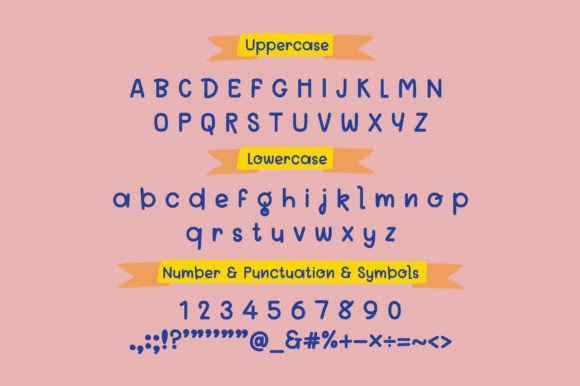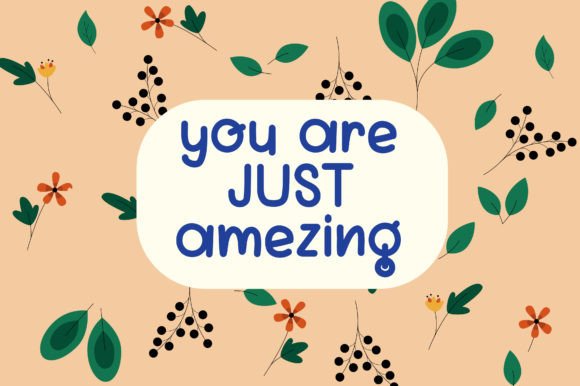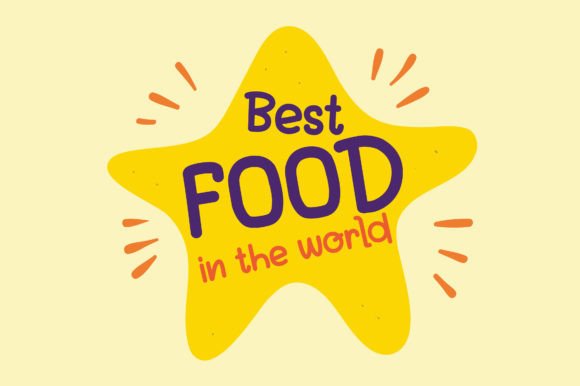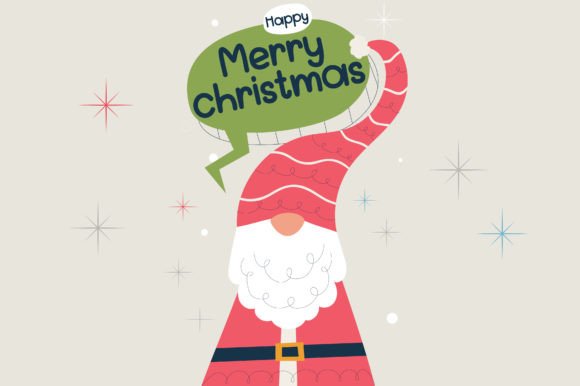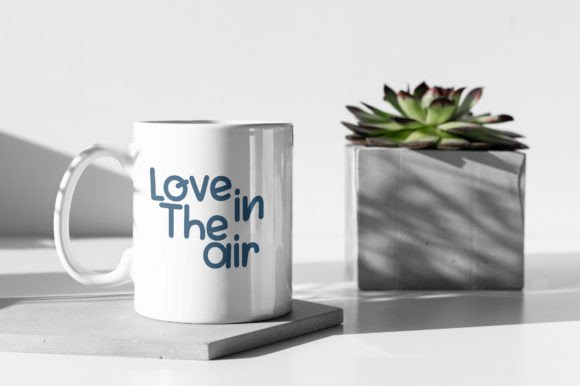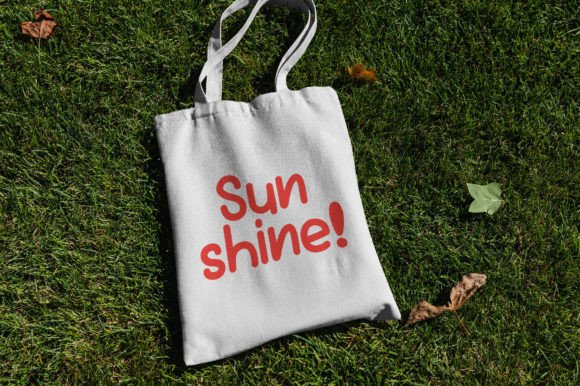
Find Your Creative Groove with the Flowing Arc Font Font
Remember that moment when you stumbled upon the perfect font, and your design suddenly came to life? It’s a feeling that’s hard to describe, but it’s a rush of excitement and a sense of pride. For designers, finding the right font can be a game-changer. It’s the difference between a good design and a great one. And, we’re excited to introduce you to the Flowing Arc Font Font, a sweet and friendly handwritten font that’s sure to captivate your audience.
With its natural and unique style, the Flowing Arc Font Font is incredibly versatile, making it perfect for a wide range of designs, from digital projects to print materials. Whether you’re a seasoned designer or just starting out, this font is sure to inspire your creativity and help you bring your vision to life.
Flowing Arc Font Font Key Features
- Unique Characteristics: Flowing Arc Font Font features a unique blend of organic and geometric shapes, creating a dynamic and engaging visual experience.
Flowing Arc Font Review
Overall, I was impressed with the Flowing Arc Font. It’s a beautiful, modern sans-serif font that works well for a variety of applications, from digital interfaces to print materials.
- The font is highly customizable, allowing designers to adjust the weight, width, and other parameters to suit their needs.
- It has a clean, minimalist aesthetic that makes it perfect for modern designs.
- The font is highly legible, even at small sizes, making it suitable for use in digital interfaces and other applications where text may be displayed in a small format.
However, I did encounter some limitations: ⚠️
- The font may not be suitable for use in traditional or formal settings, as it has a more modern and edgy feel.
- It may not be as versatile as other fonts, as it is specifically designed for modern and minimalist designs.
Overall, I would highly recommend the Flowing Arc Font for modern and digital designs. While it may have some limitations, it is a beautiful and highly customizable font that can add a lot of value to a design project.
Tips: Use Flowing Arc Font for creative headings and titles to add a touch of elegance to your designs.
Tips: Use Flowing Arc Font for custom typography and creative lettering projects.
Tips: Use Flowing Arc Font for creative headings and titles to add a touch of elegance to your presentations and documents.
Flowing Arc Font is perfect for:
- Creative typography and lettering projects
- Artistic and elegant headings and titles